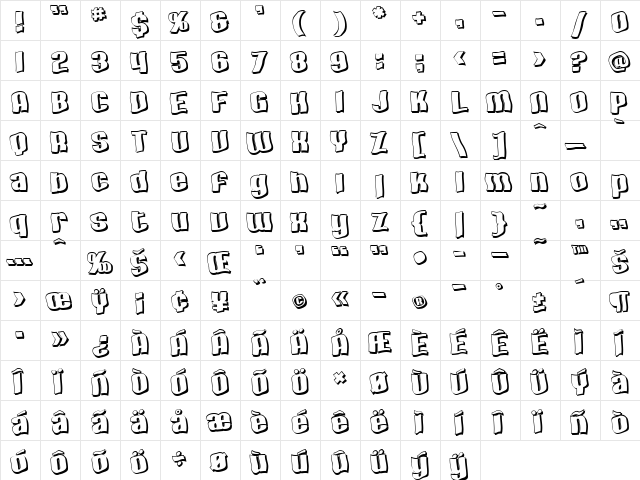
SF Hallucination Shadow Regular
Design Context for SF Hallucination Shadow Typeface
SF Hallucination Shadow brings ornamental detail and strong personality to headlines and identities, where visual impact matters more than quiet functionality.
Font Pairing: Pair with a clean neutral sans-serif for body copy to let SF Hallucination Shadow's character lead without overwhelming the composition.
Pro Tip: Use SF Hallucination Shadow exclusively at display sizes — it was designed to be seen, not read at length. Let a neutral companion handle body copy.